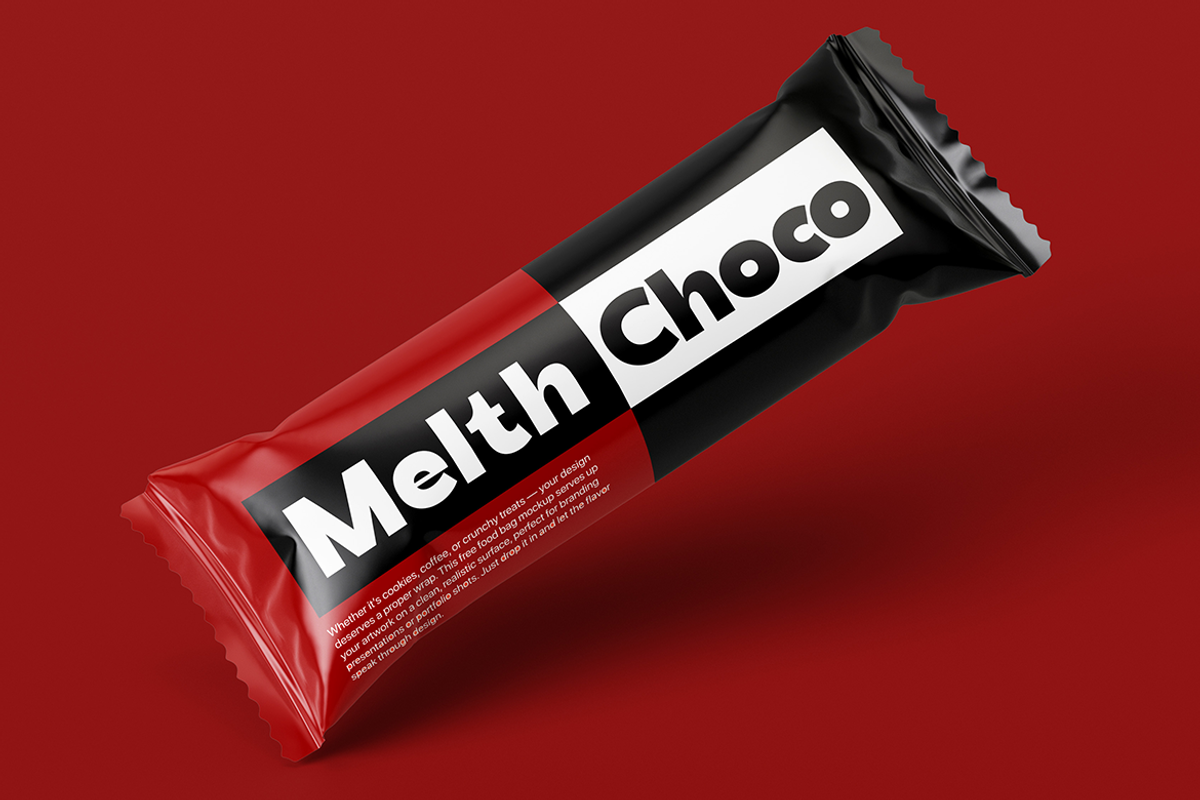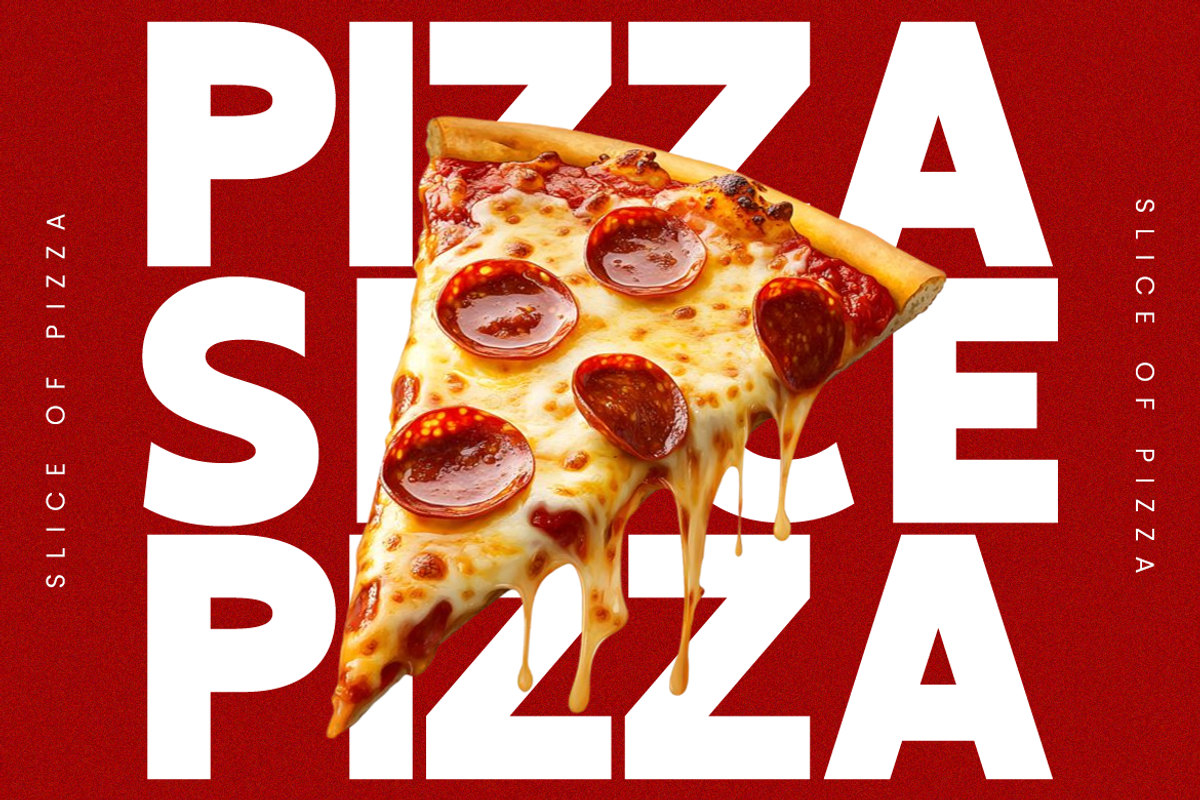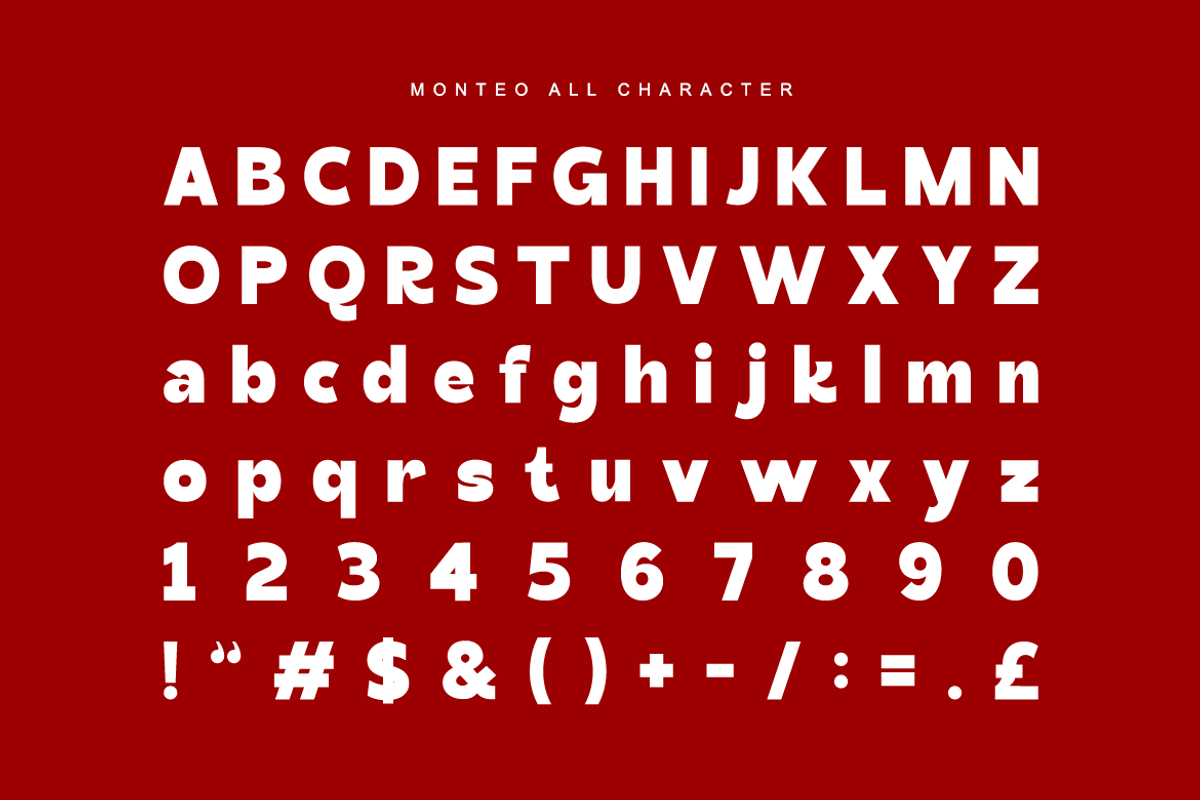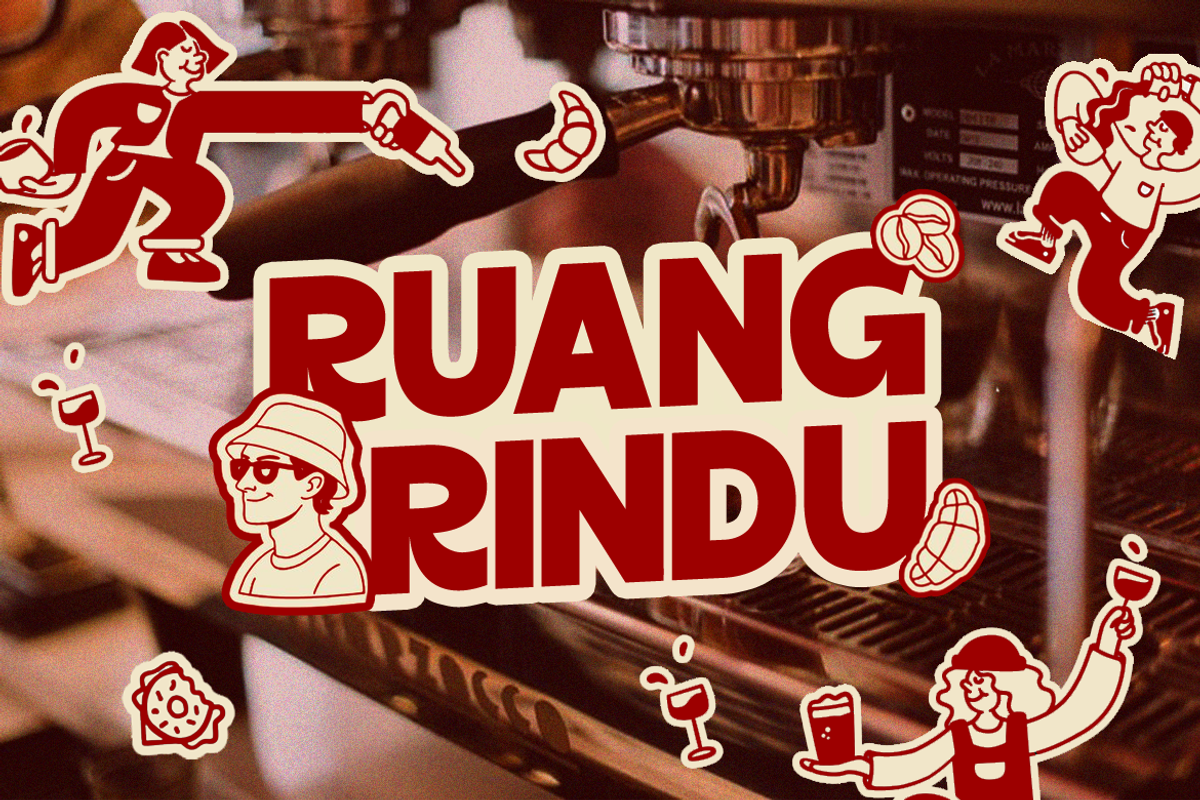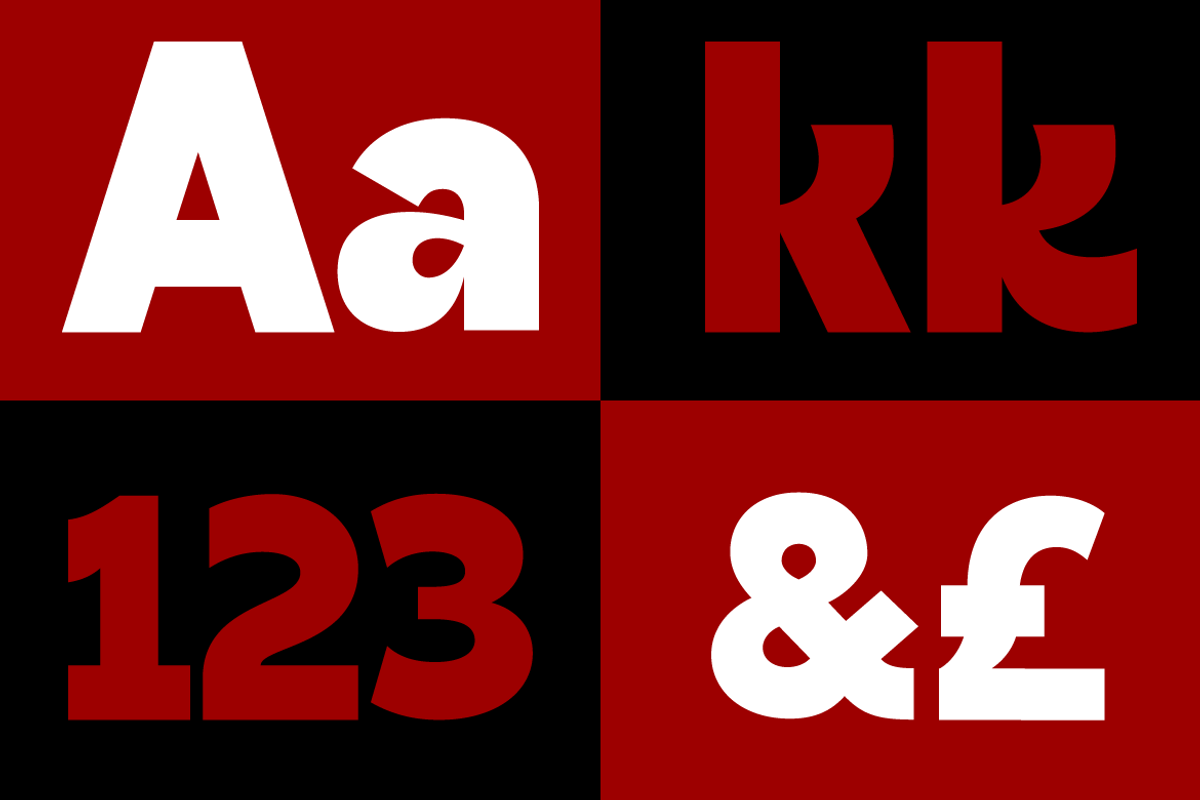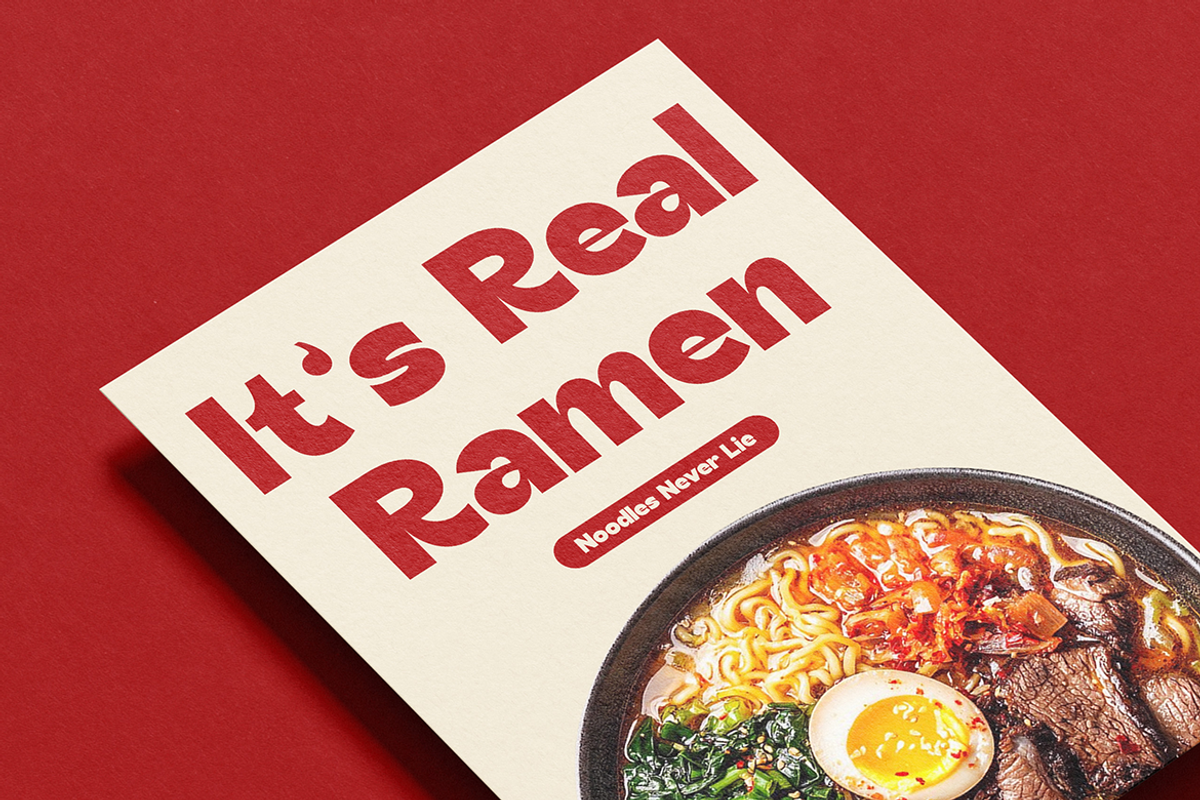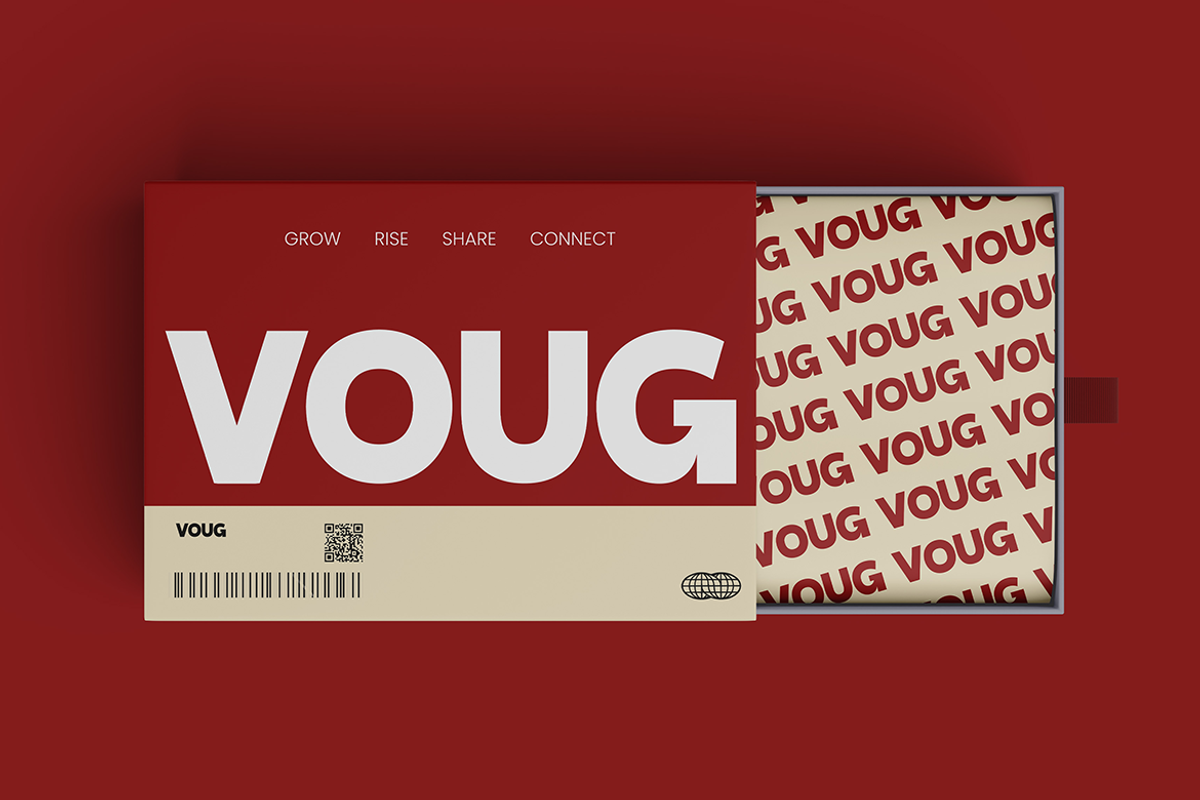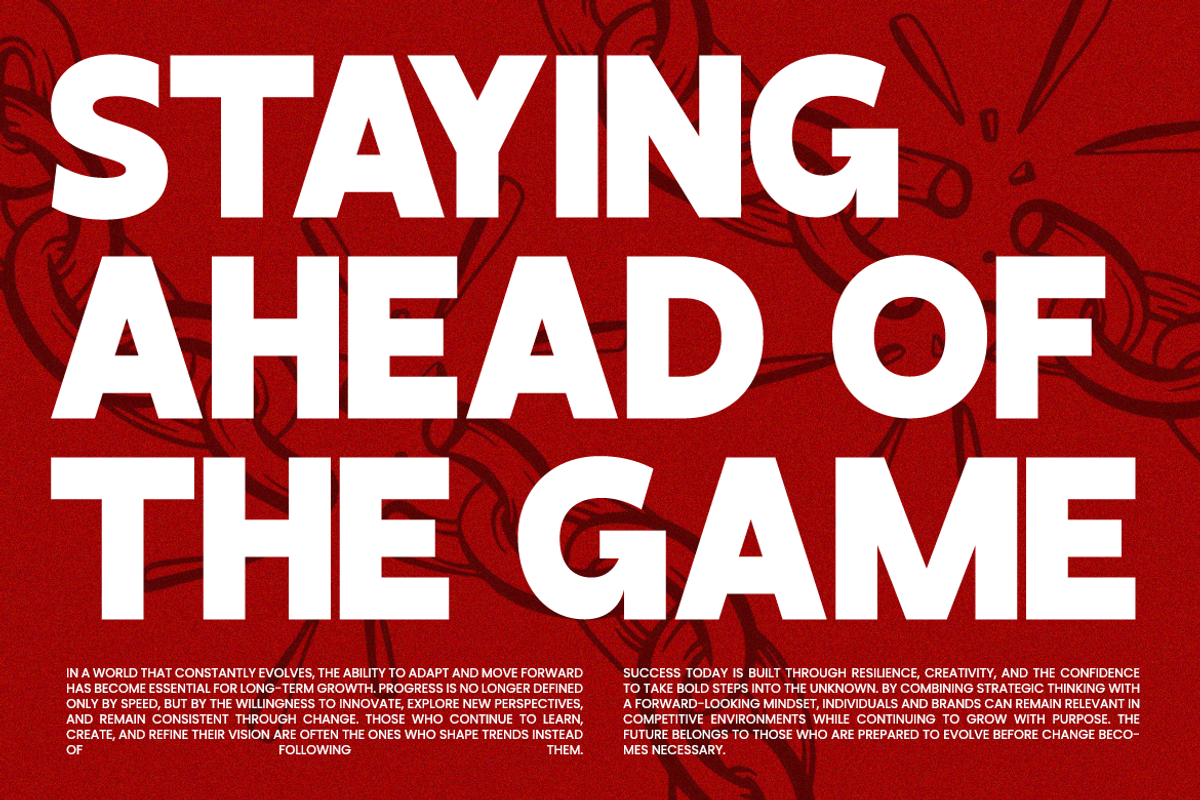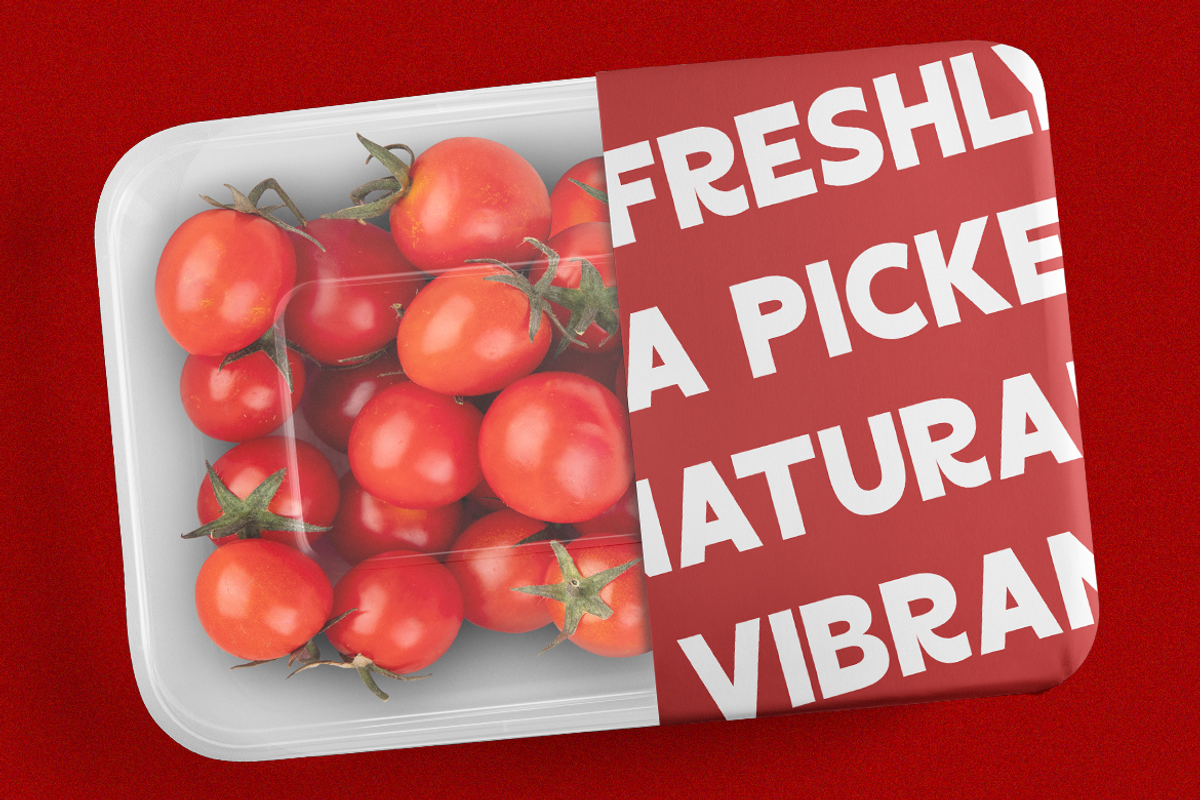
Monteo Bold Display Branding Font
Monteo Bold Display Branding Font showcases a chunky and confident sans serif style with playful curves, rounded edges, and strong geometric proportions. The font package includes uppercase and lowercase characters, numerals, punctuation, designed for impactful branding and modern visual communication. Its bold construction creates a clean yet energetic appearance suitable for eye-catching headlines, café branding, food packaging, retro-inspired posters, merchandise, and social media graphics.
Relevance and Use Cases is perfect for modern branding projects that require a strong and memorable visual identity. Its bold and rounded structure works especially well for café brands, coffee packaging, food promotions, streetwear labels, lifestyle campaigns, posters, YouTube thumbnails, social media banners, creative merchandise, and playful editorial layouts.
Design Features :
Bold geometric sans structure with heavy rounded letterforms
Thick uniform strokes for strong visual impact and readability
Soft curved terminals creating a playful and friendly appearance
Compact character proportions optimized for branding and headlines
Clean modern shapes with retro-inspired display typography style
Food branding and restaurant promotions with bold visual appeal
Packaging design for snacks, beverages, and fast food products
Poster layouts and advertising campaigns requiring oversized typography
Logo design and brand identity projects with playful commercial energy
Social media graphics and promotional banners for lifestyle brands
Supports numerals, punctuation, and extensive symbol set